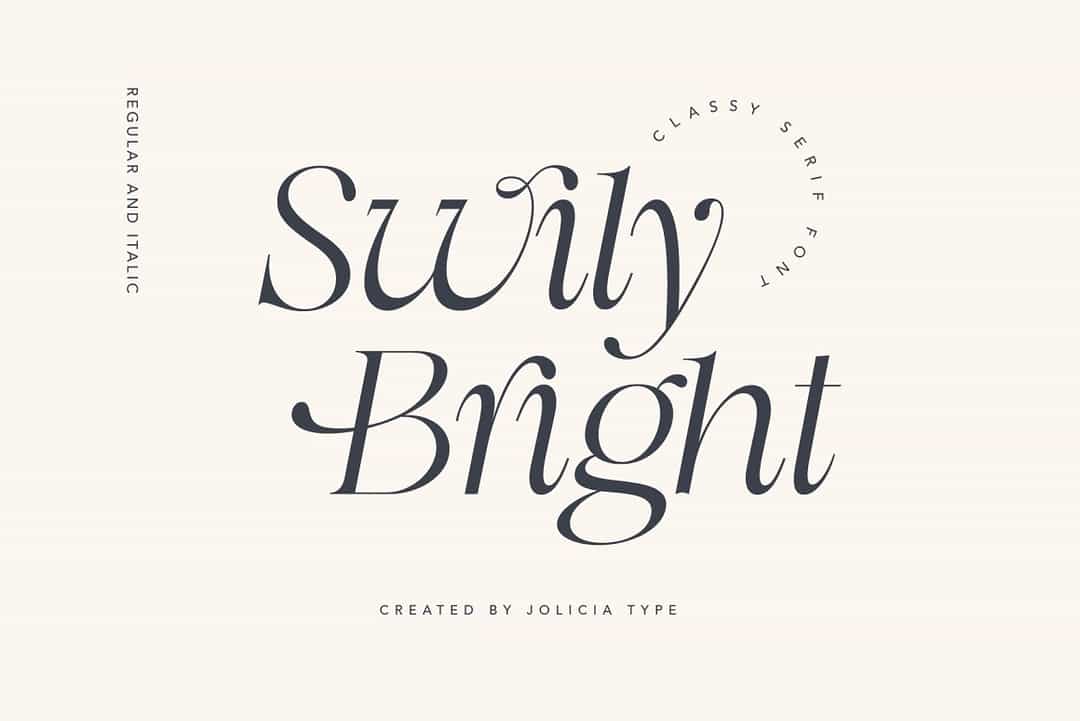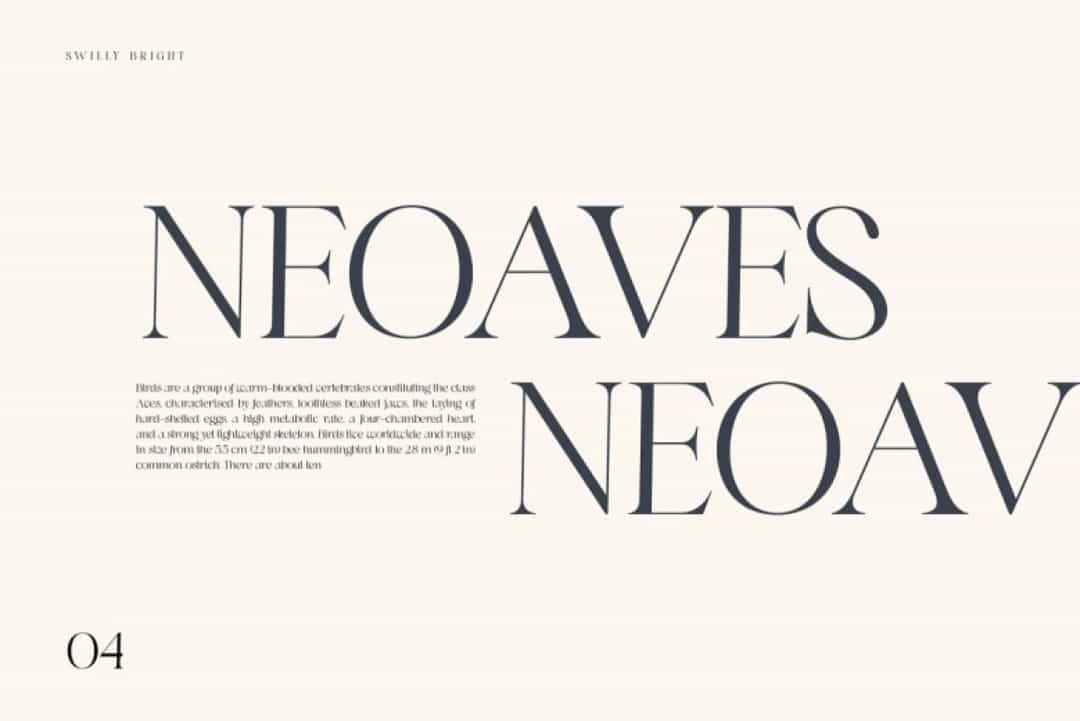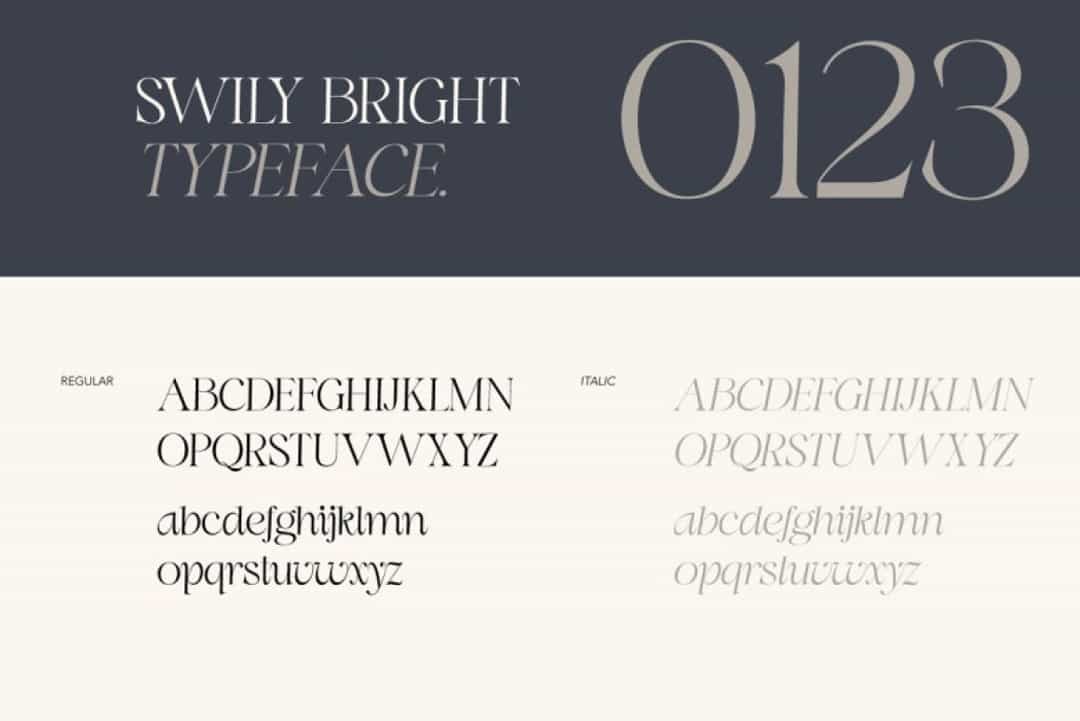
Swily Brightis is a serif typeface and calligraphy font designed and shared by Jolicia Type, providing modern, stylish, trendy serif fonts perfect for elegant projects. Elegant yet classic in look with two styles Regular and Italic fonts plus alternates, ligatures this font provides endless letter combinations that you can use for branding projects of any kind.